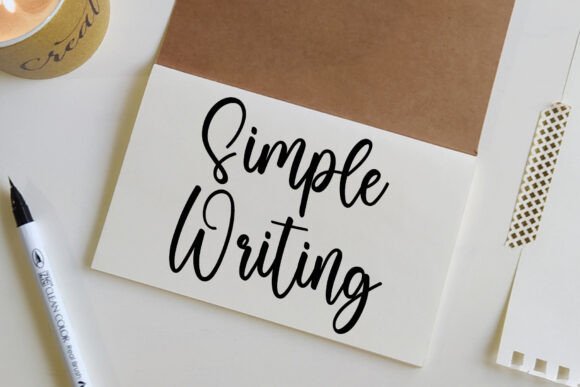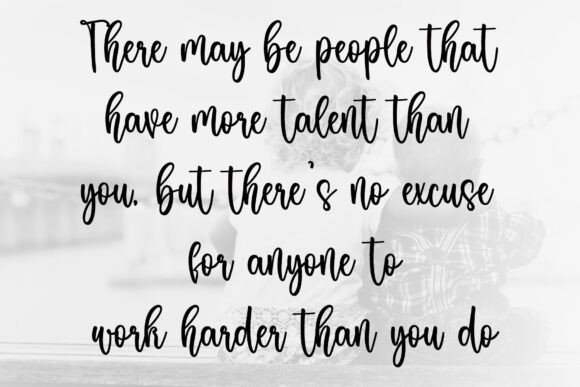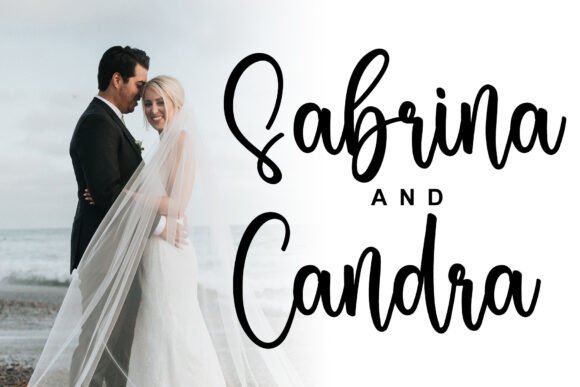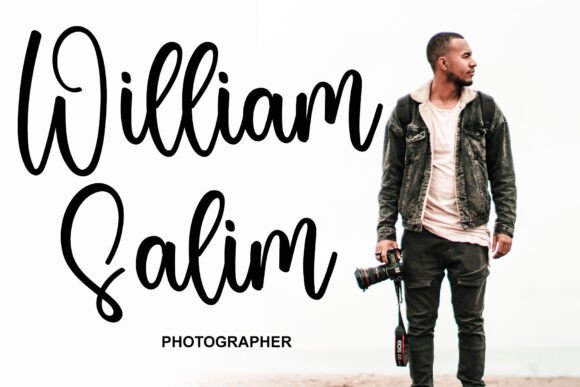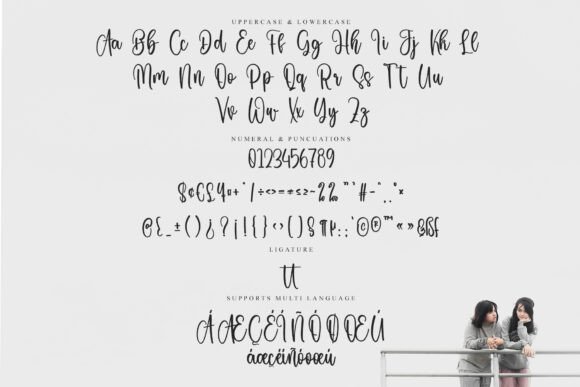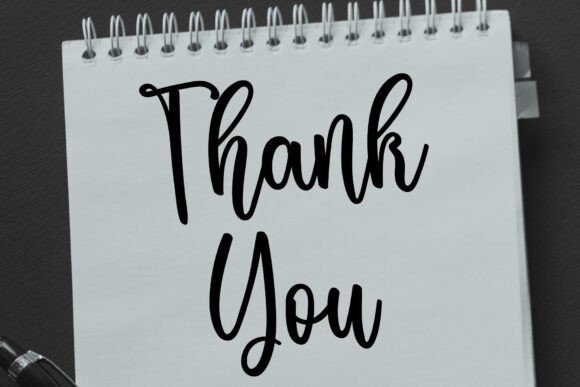
Unleash Your Creativity with the Amellia Signature Font
Have you ever stared at a blank sheet of paper, feeling the weight of a creative project’s expectations? The cursor blinks, taunting you to start. But then, a spark of inspiration strikes, and you begin to scribble down ideas, letting your pen dance across the page. It’s in these moments that the right font can be the difference between a good design and a great one.
That’s where the Amellia Signature Font comes in – a stylish handwritten font that adds a touch of elegance and sophistication to any project. Perfect for logos, invitations, and creative projects that need a classy and modern look, this font is a valuable asset for designers looking to elevate their work. With its smooth and natural flow, and personal touch, the Amellia Signature Font is a must-have for anyone seeking to make a lasting impression.
Amellia Signature Font Key Features
- Character Set: Supports a wide range of languages, including Latin, Cyrillic, and Greek alphabets, making it suitable for global use.
- Unique Characteristics: The Amellia Signature Font features a unique blend of modern and elegant design elements, with subtle flourishes and ornate details.
- Style Variations: Includes 5 unique styles: Regular, Bold, Italic, Bold Italic, and Outline, allowing for versatility in design and layout.
Designer Review: Amellia Signature Font
Amellia Signature Font is an elegant script font that exudes sophistication and luxury. The ✨ unique, handwritten feel of this font is sure to capture the attention of anyone who lays eyes on it. I particularly love the ✨ intricate details that give this font its signature touch.
- ✨ Elegant, sophisticated feel
- ✨ Unique, handwritten style
- ✨ Intricate details add a touch of luxury
- ✨ Wide range of applications, from logos to invitations
- ⚠️ Limited character set, may not be suitable for longer texts
- ⚠️ Some letters may be difficult to read at smaller font sizes
- ⚠️ Not as versatile as some other fonts, may not work well for body text
Overall, I think Amellia Signature Font is a beautiful addition to any designer’s toolkit. While it may have some limitations, its unique feel and luxurious details make it a great choice for special occasions or high-end branding projects.
Some common use cases for the Amellia Signature Font include:
- Creating a personal brand or logo
- Designing business cards or marketing materials
- Adding a touch of elegance to wedding invitations or stationery
For optimal readability, we recommend using the Amellia Signature Font at a minimum size of 12 points and a line height of 1.5 to 2 times the font size. This will ensure that the text is clear and easy to read, even at smaller font sizes.